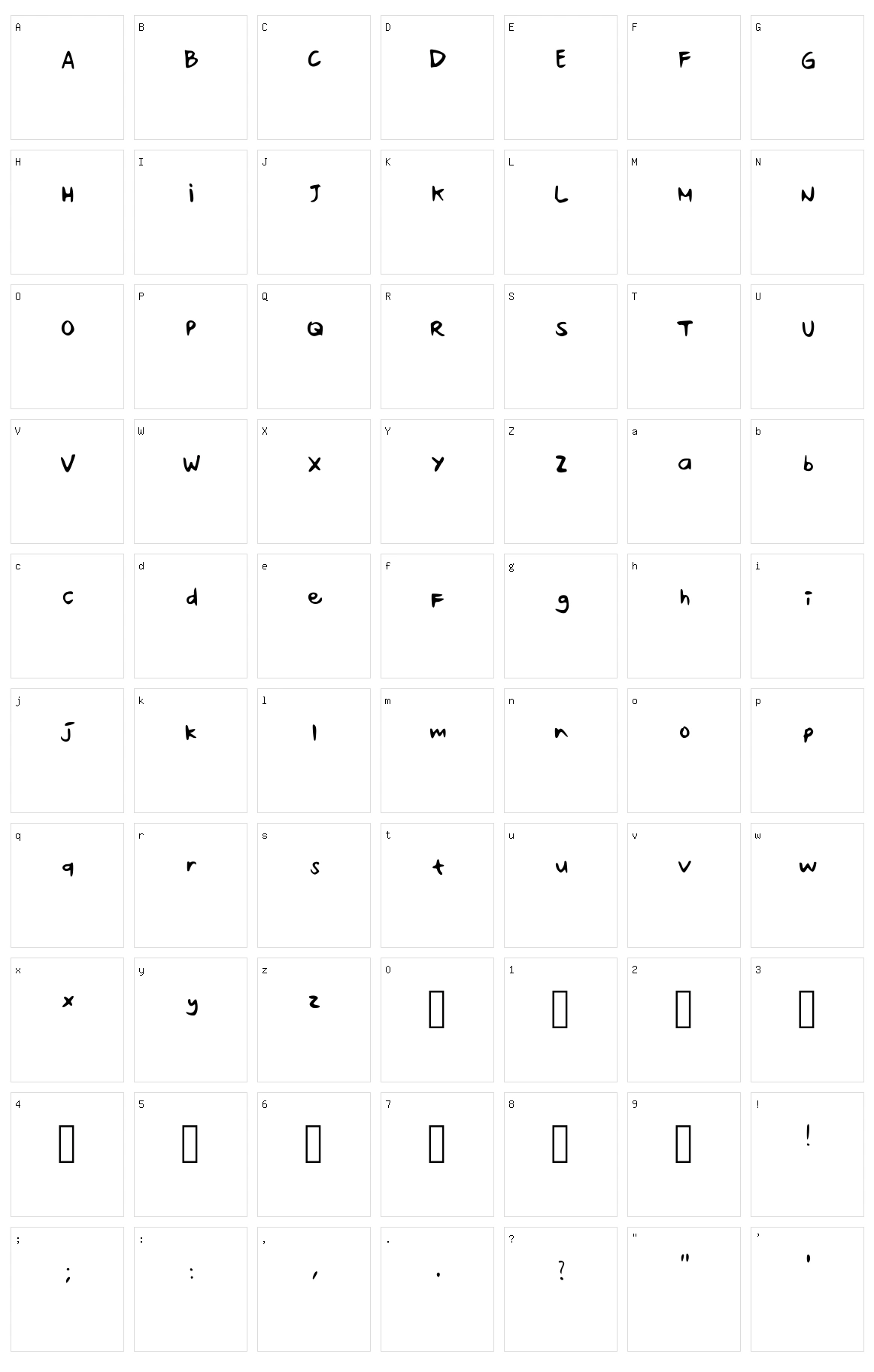
The free font Lufftea Candy is carefully designed by CY Pangilinan, showcasing a thoughtful balance of creativity and usability and falls under the Script font style. When you download the ZIP file, it contains only 34.87 KB of font files, making it lightweight and quick to download. Please review the license details below to understand permitted usage and distribution rights. If license information is not available, we recommend using this font for personal projects only or contacting the author directly for commercial usage permissions.